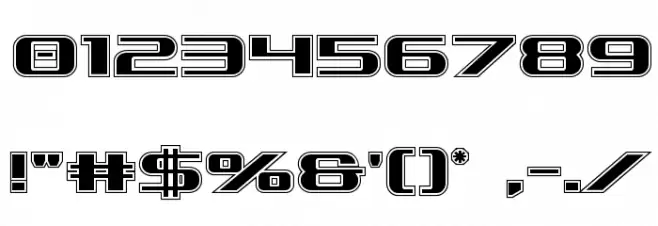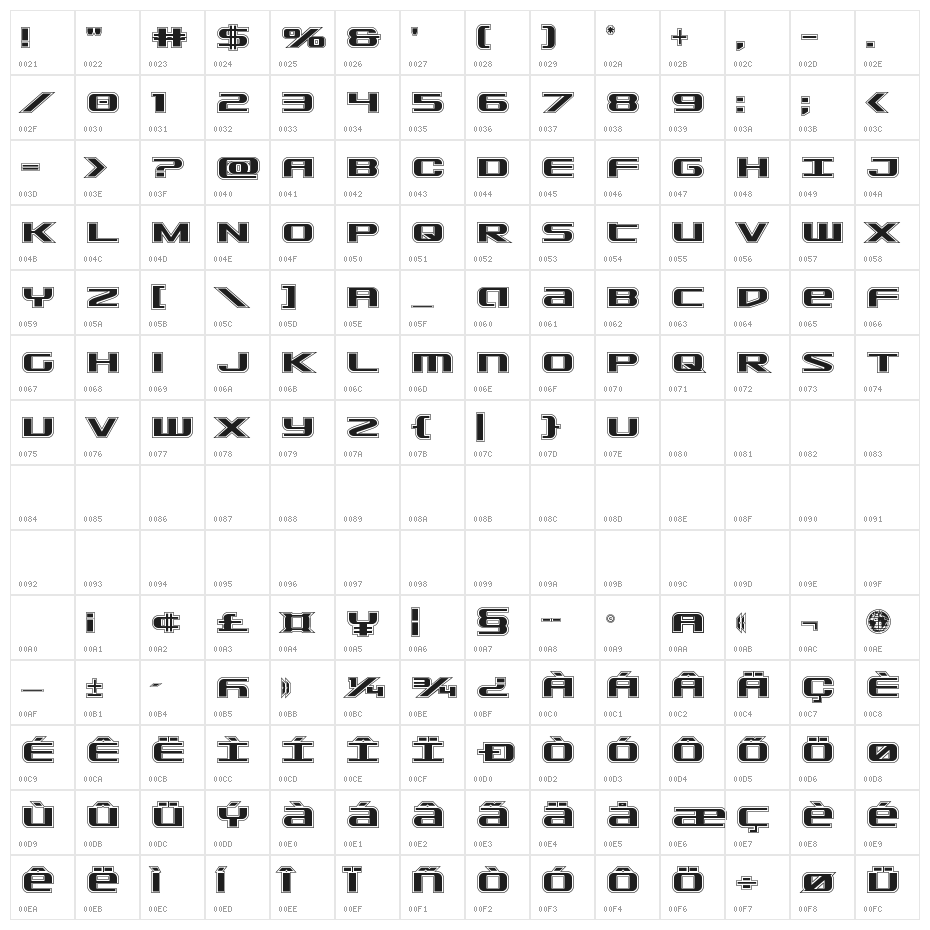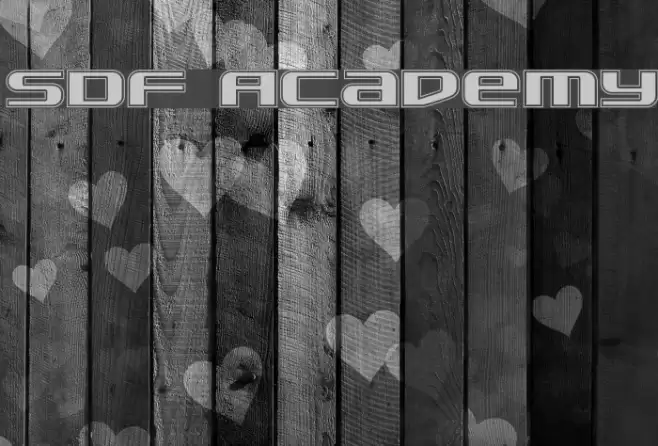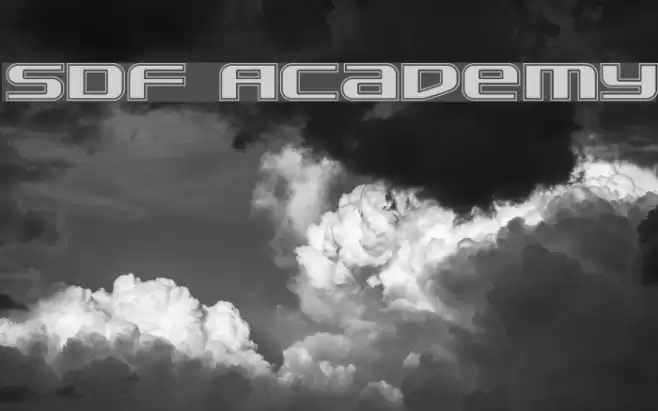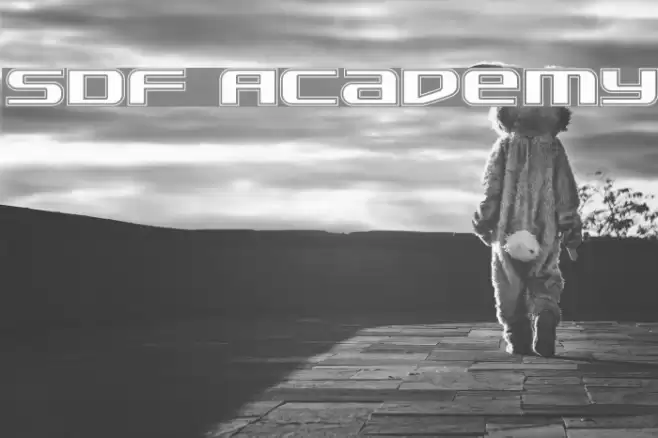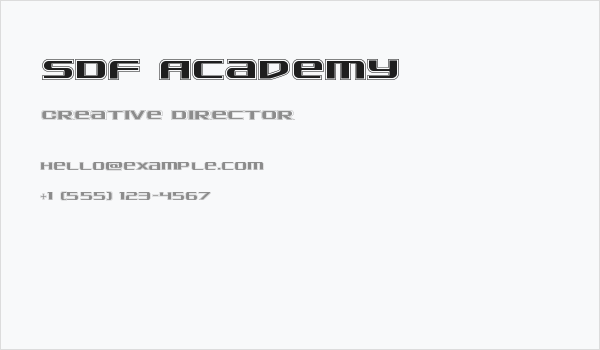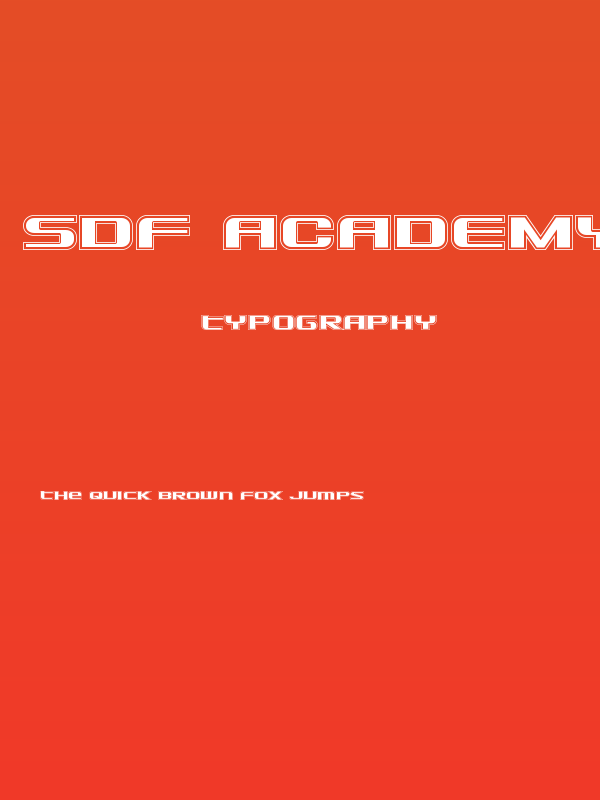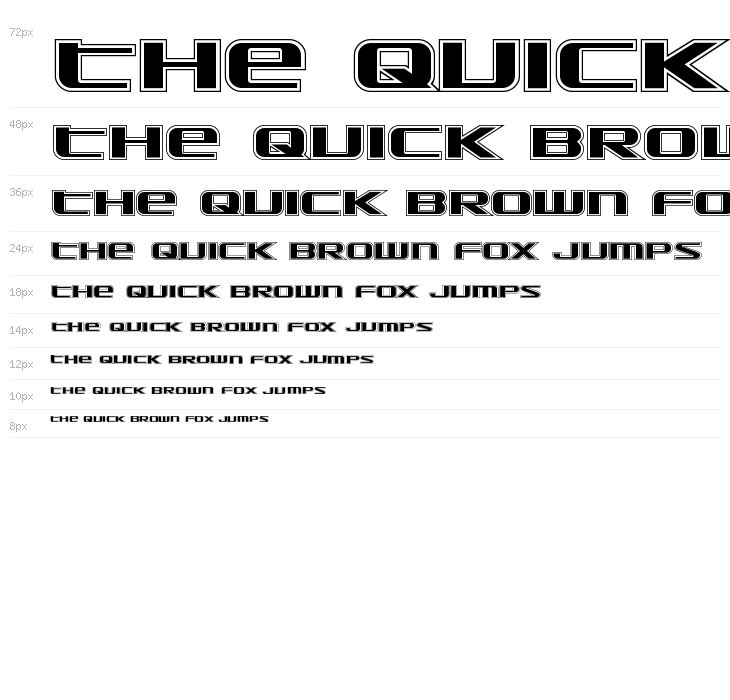
SDF Academy Font
SDF Academy Description
This font features a bold, futuristic design with a strong geometric structure. The characters are outlined with a double line, creating a sense of depth and dimension. The uppercase and lowercase letters maintain a consistent style, with sharp angles and clean lines. The numerals and special characters follow the same design principles, ensuring uniformity across all glyphs. This font's unique style makes it stand out, offering a modern and edgy look that is both eye-catching and versatile.
| Proposed Projects | Ideal for sci-fi themed projects, technology branding, video game titles, and modern posters. |